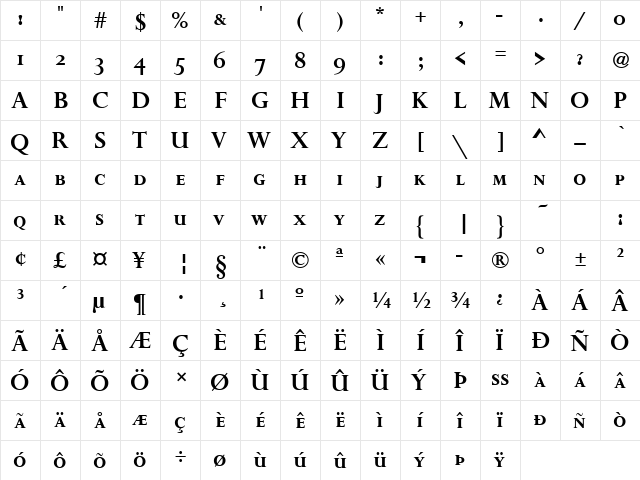
URWPerseusSCTMed Regular Font Preview
URWPerseusSCTMed Regular
Design Context for URWPerseusSCTMed Typeface
URWPerseusSCTMed takes a measured approach to typography — its balanced proportions and neutral character make it a reliable workhorse for both digital and print work.